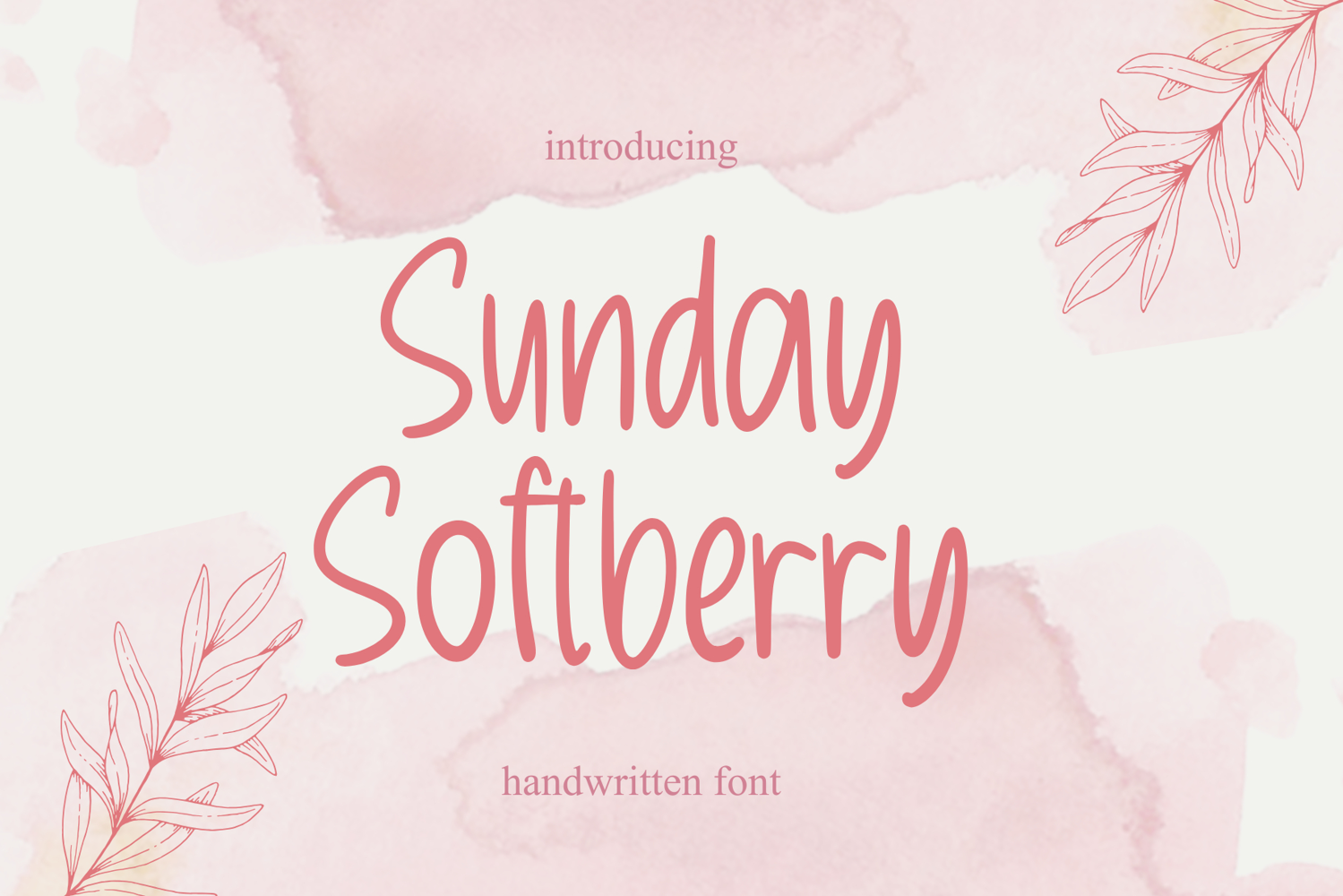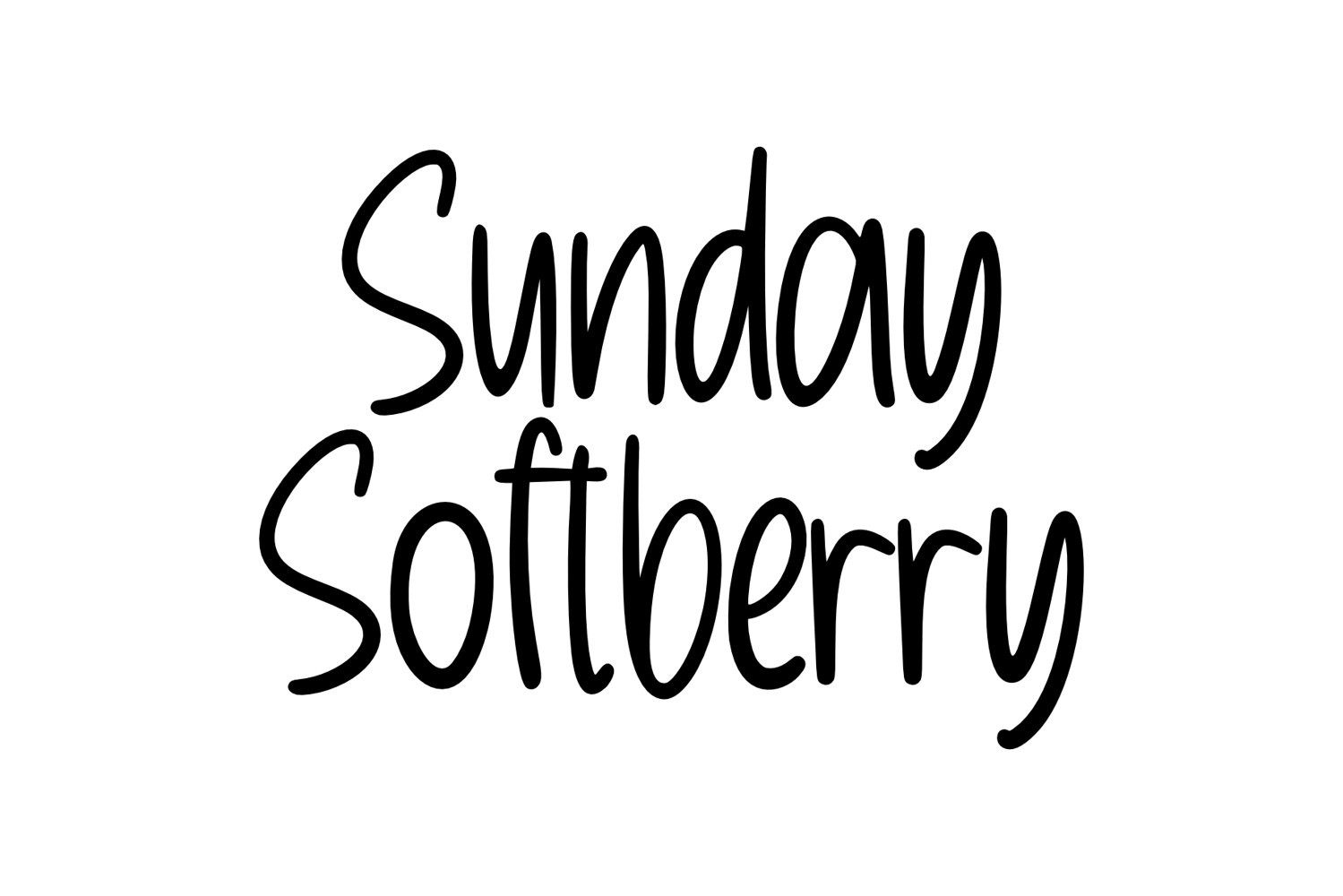
Sunday Softberry
Sunday Softberry Monoline Script is a charming and elegant handwritten font that exudes a soft and whimsical vibe. With smooth monoline strokes, it adds a touch of sophistication to any project. Perfect for invitations, branding, and social media graphics, this font is sure to make your designs stand out.